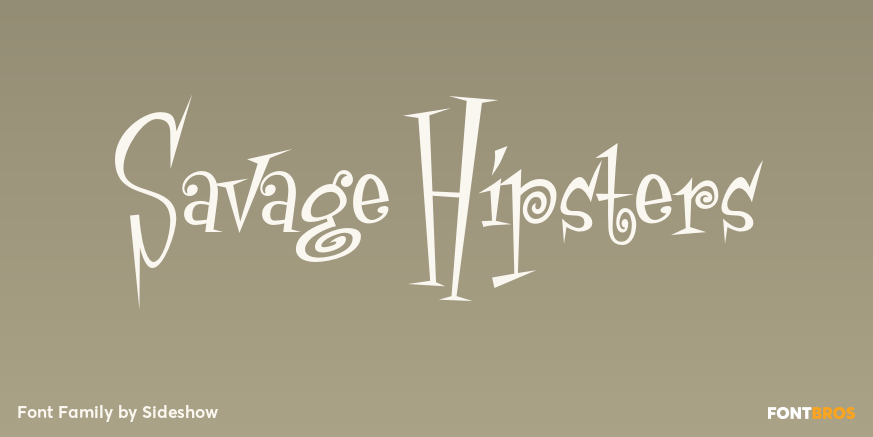
Savage Hipsters
Savage Hipsters was designed by German pinstriper Tom Plate for Sideshow and all you little retro kustom beatniks. Put some bebop in your art – use standard for melody, caps lock for rhythm. Comes with Regular and Way Out caps.